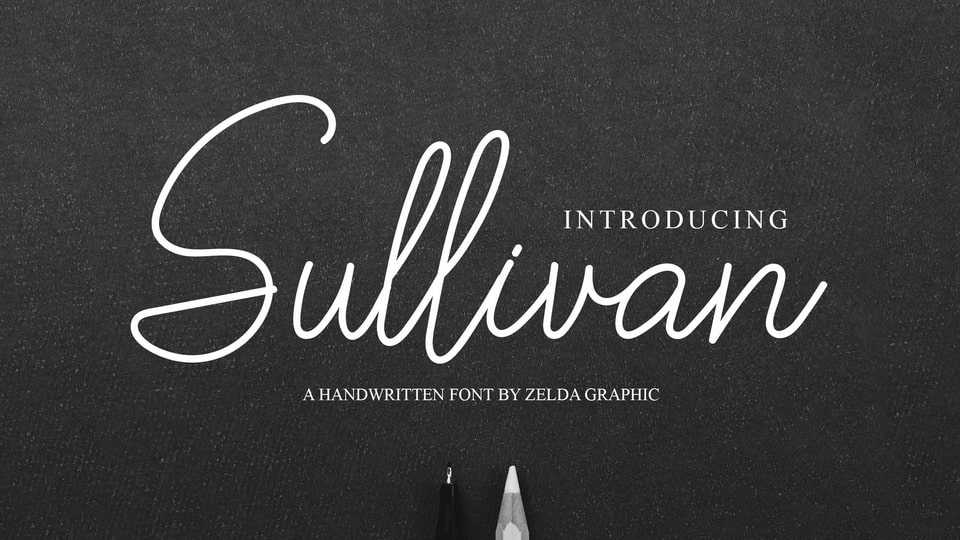
Download Sullivan font, a modern and awesome handwriting typeface with a natural style. Sullivan font is suitable for your current or classic design: signature, logo, branding, invitation, blog headline and many more.
Designer: Zelda Graphic